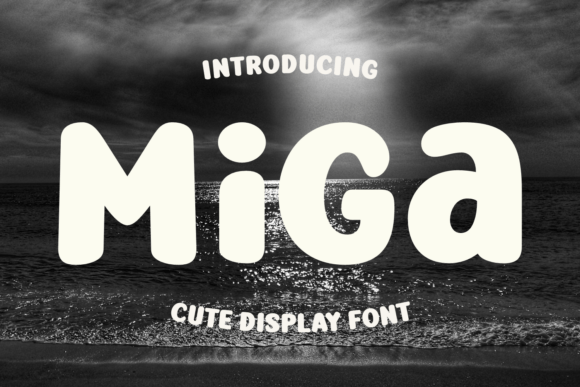
Miga: The Ultra-Chunky Display Font That Brings Joy to Your Designs
In the crowded landscape of digital and print media, grabbing attention often requires more than just bright colors or clever copy; it demands a visual voice that speaks immediately to the viewer's emotions. Miga is exactly that kind of voice. It is an ultra-chunky, irresistibly cute display font designed to make a big, friendly impression without saying a word. Defined by its exaggerated, perfectly rounded shapes and incredibly soft edges, Miga exudes an immediate feeling of fun, playfulness, and warmth. For designers looking to inject pure, unadulterated joy into their work, this typeface offers a modern, cute aesthetic that stands out in a sea of sharp serifs and rigid sans-serifs.
The Anatomy of a Friendly Typeface
What sets Miga apart from other bold fonts is its commitment to maximal impact with minimal fuss. While many heavy fonts rely on aggressive angles or stark contrasts to command attention, Miga achieves its presence through buoyancy. Its thick strokes and substantial weight give it a wonderfully lovable appearance, almost like a character drawn from a children’s book come to life. The letters are not merely thick; they are soft. Every corner is smoothed over, creating a tactile sensation even when viewed on a screen.
This design philosophy makes Miga incredibly versatile despite its large proportions. Unlike some chunky display fonts that become illegible blobs when scaled down, Miga retains its readability in smaller sizes due to its simple, robust form. This balance between massive visual weight and legibility allows it to function effectively as a headline grabber while still holding its own in subheads or short captions where space is limited but personality is required.
Ideally Suited for Playful Branding and Packaging
The true power of Miga shines when applied to real-world scenarios where approachability is the primary goal. Consider the world of children’s products. When parents scan shelves for toys, books, or educational games, they are instinctively drawn to packaging that feels safe and inviting. Miga is an excellent choice for branding these items because its bubbly nature signals fun immediately. A toy box featuring the brand name in Miga doesn't just look loud; it looks huggable. It suggests that the product inside is gentle, engaging, and designed with care.
This same principle applies to the food industry, particularly for snacks and treats. Think about candy wrappers, cookie boxes, or ice cream tubs. These products sell happiness and indulgence. Using a sharp, corporate font for a gummy bear brand would feel disjointed, but Miga fits naturally. Its rounded forms mimic the physical shape of sweets—soft, squishy, and delightful. By using Miga for a confectionery logo, brands can create a sweet, memorable personality that resonates with both kids and adults who have a "sweet tooth" for nostalgia.
Digital Engagement and Mobile Game Design
In the digital realm, specifically within casual mobile games and social media campaigns, user attention spans are measured in seconds. Miga serves as a powerful tool to stop the scroll. In a mobile game interface, buttons labeled with Miga—such as "Play," "Start," or "Level Up"—feel clickable and rewarding. The font's substantial weight ensures that interactive elements are distinct against busy backgrounds, reducing user error while enhancing the overall playful tone of the application.
For social media managers and content creators, Miga offers a way to break through the noise of text-heavy feeds. Imagine an Instagram story or a TikTok overlay announcing a flash sale or a community event. A standard font might blend into the background, but Miga pops with energy. It turns a simple announcement into an event. Because the font reads well even on small mobile screens, it ensures that your message is clear regardless of the device size, making it a practical choice for responsive design strategies.
Logos That Leave a Lasting Impression
When crafting a new logo, the choice of typography often dictates the entire brand identity. Miga is perfect for startups and businesses that want to appear accessible rather than authoritative. Whether it's a daycare center, a pet grooming service, a creative workshop, or a lifestyle blog focused on wellness and happiness, a logo built on Miga communicates that the business is human-centric and warm. It removes the intimidation factor often associated with corporate branding, inviting customers to engage without hesitation.
Furthermore, the simplicity of Miga's form makes it highly adaptable across various mediums. A logo designed with this font translates seamlessly from a tiny app icon to a massive billboard. The lack of intricate details means it won't get lost in low-resolution prints or pixelated screens, ensuring consistency in brand recognition across all touchpoints.
Strategic Considerations for Implementation
While Miga is a powerhouse of positivity, understanding its limitations is key to using it effectively. As a display font, it is best reserved for headlines, logos, and short phrases. Attempting to use Miga for long paragraphs of body text will likely overwhelm the reader. The sheer weight of the characters can cause eye fatigue if used in dense blocks, so it should be paired with a lighter, more neutral sans-serif for longer reading materials. This combination allows Miga to do what it does best—grab attention—while letting a secondary font handle the detailed information.
Whether you are a graphic designer working on a client's rebrand, a marketer planning a summer campaign, or an entrepreneur launching a new product line, Miga offers a unique opportunity to stand out. It is more than just a set of letters; it is a mood setter. By choosing Miga, you are signaling to your audience that your project is approachable, fun, and worth their time. In a world that often feels cold and digital, a font that brings a smile to the face of the viewer is not just a design choice—it is a strategic asset.